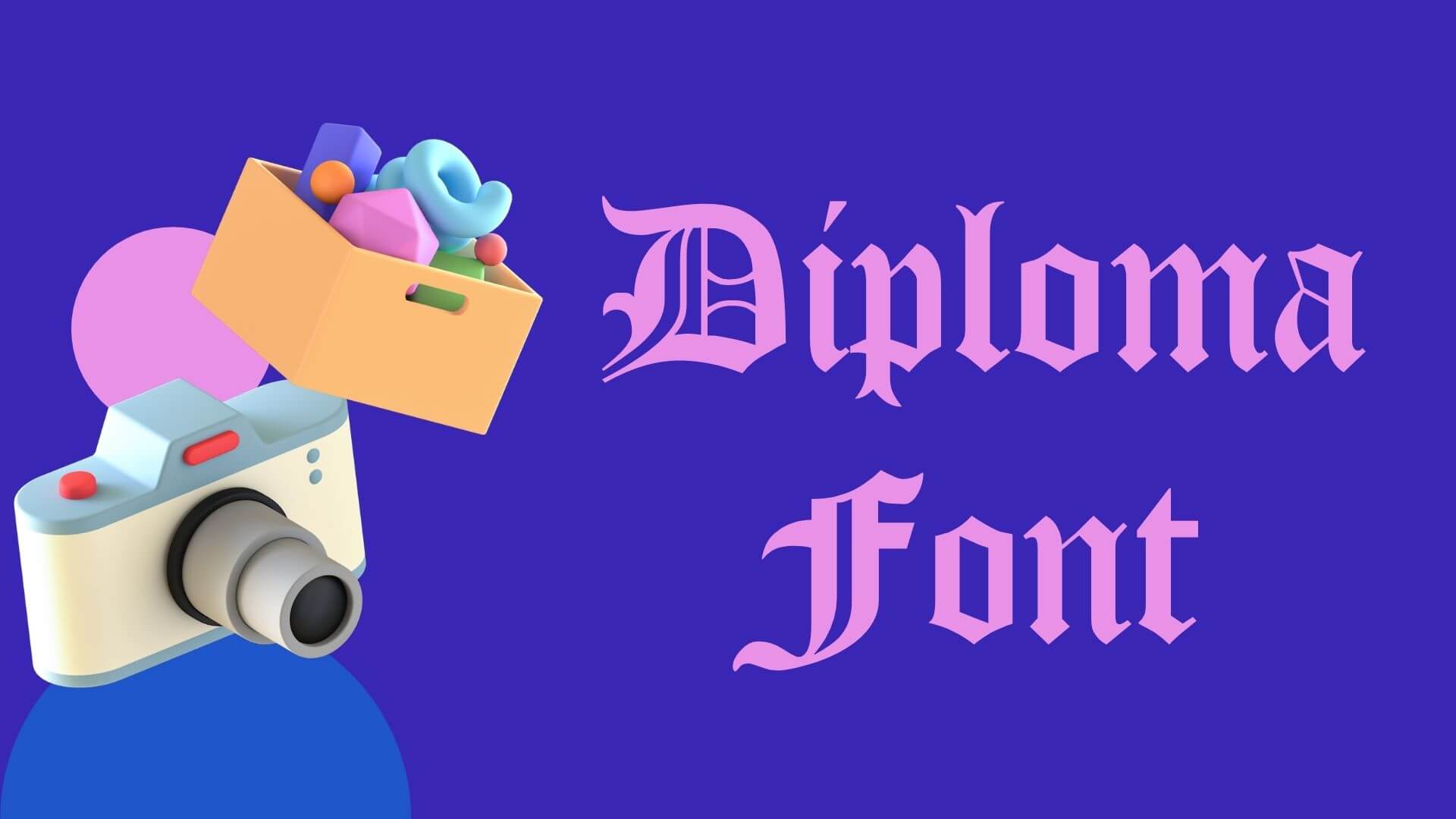
Diploma Font Family a gothic-style typeface specifically crafted for use in a wide range of documents and diploma certificates. This font is also being used for many different purposes when used with hero font.
The regular weight of this typeface is widely used and this provides amazing results when used with biker font. This is a great font generator as well that also adds a great shadow to the designs.
| Name | Diploma Font |
| Type | Gothic |
| Designer | Vincent Connare |